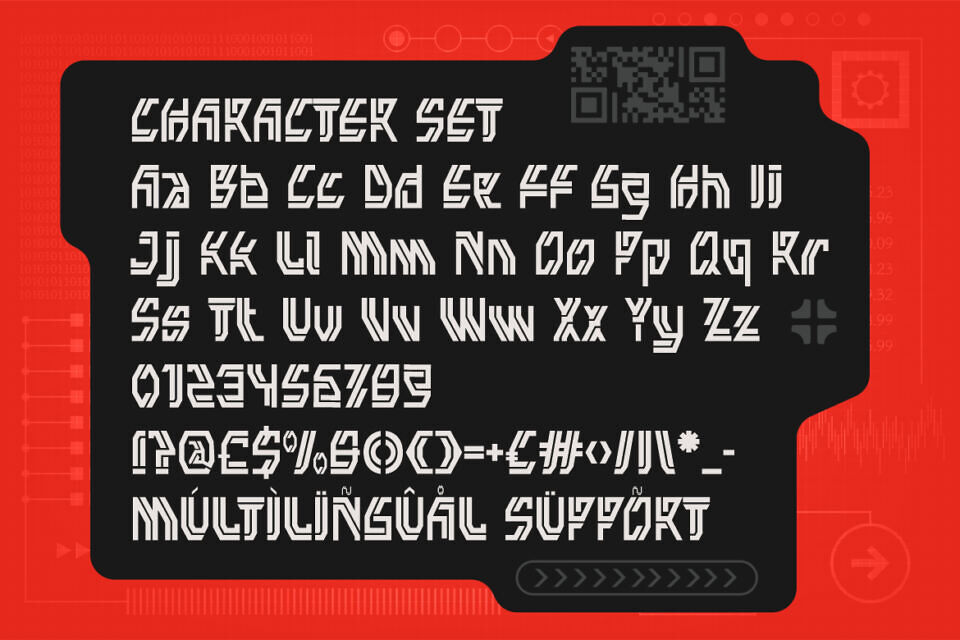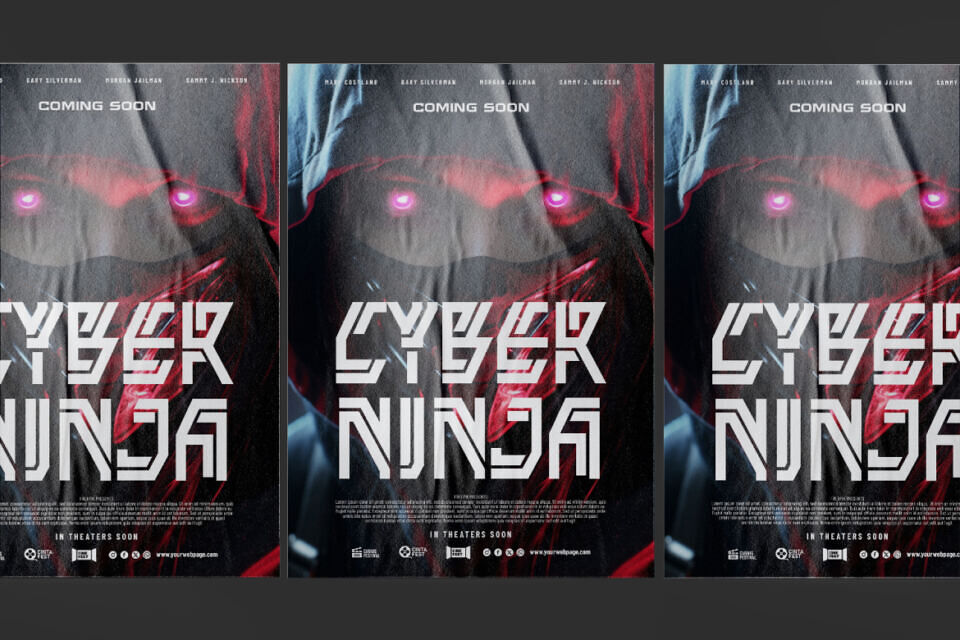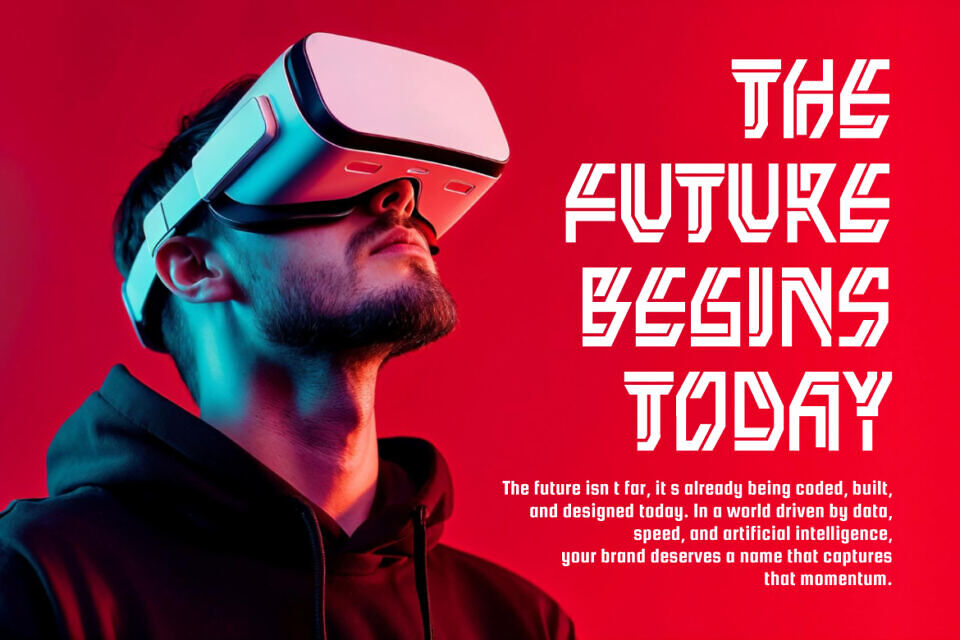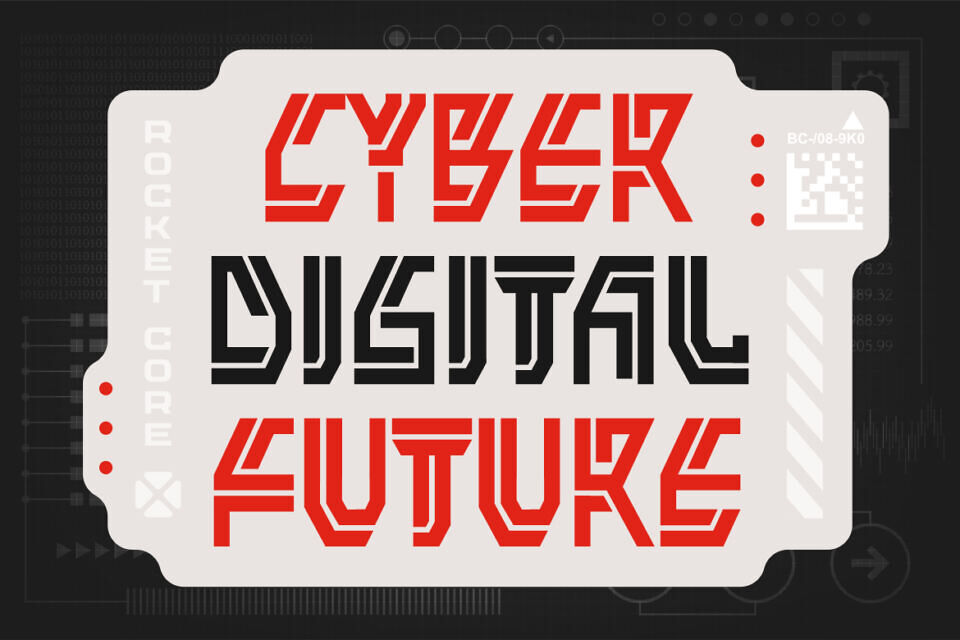
Rocket Core Font
Rocket Core is a bold, high-tech Futuristi typeface inspired by the aesthetics of advanced machinery and space innovation. Its geometric letterforms feature sharp edges, straight lines, and modular cuts that create a sense of mechanical precision and forward motion. Each character is built with a structured rhythm, combining angular symmetry and clean segmentation that mirrors digital circuits and spacecraft panels.
The font’s tall, uniform proportions and consistent line weight give it a powerful, cohesive appearance. Rocket Core Futuristic Modular Display Font embodies the visual language of technology, speed, and innovation—perfect for modern design that pushes the boundaries of the future.